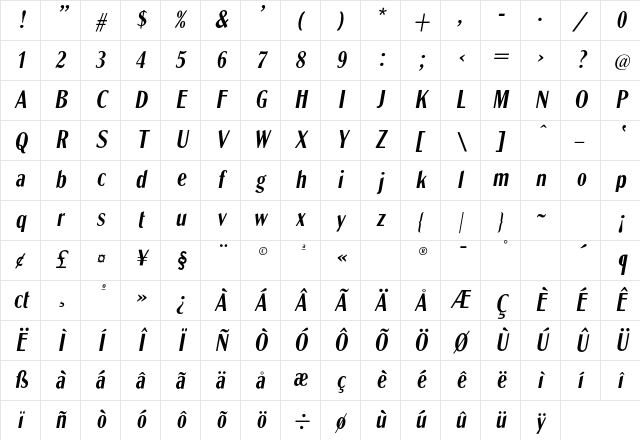
GlobeCondL-Oblique Regular
Design Context for GlobeCondL-Oblique
GlobeCondL-Oblique is a composed and adaptable typeface that performs quietly and consistently across a wide range of design contexts. The slanted form adds forward momentum and visual energy. Its narrow stance lets it pack a punch even in space-constrained designs.
Pro Tip: Use GlobeCondL-Oblique for emphasis, pull quotes, and subheadings where its slanted energy can add rhythm to the layout.